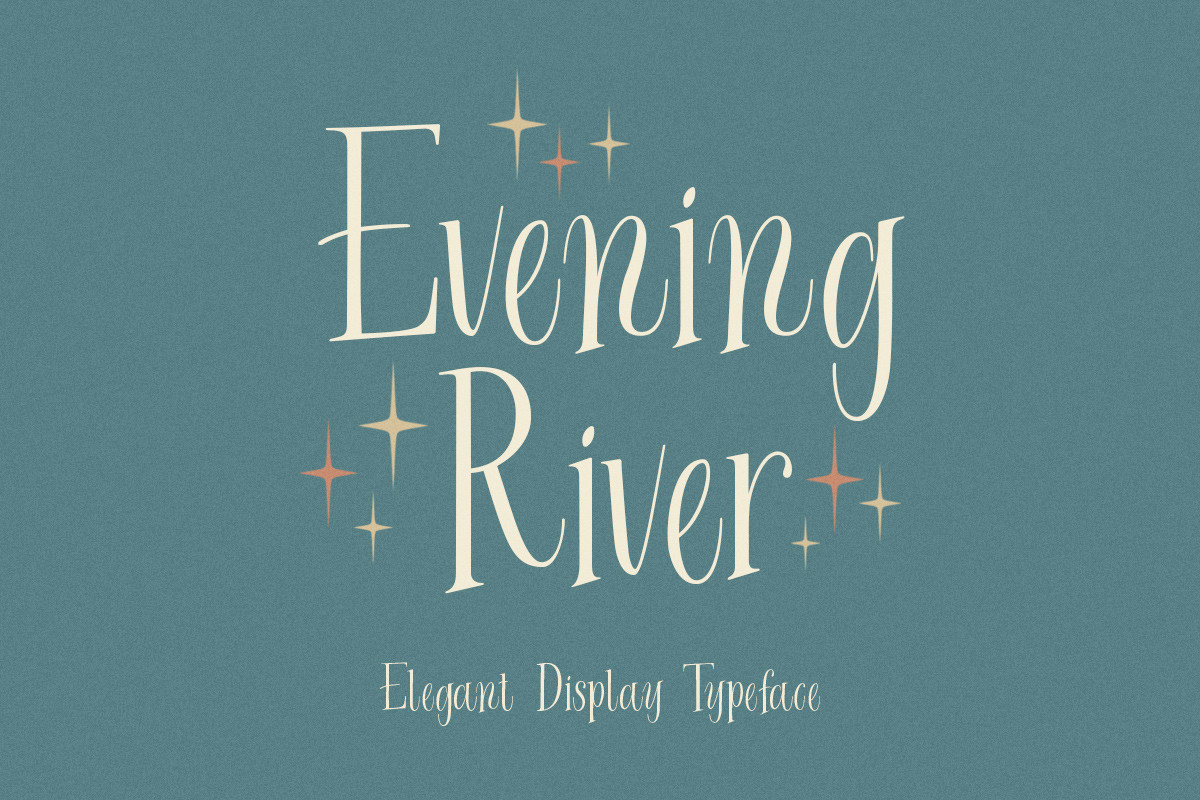
Evening River Font
Perfect for branding, logos, invitations, posters, and elegant editorial design.
The Evening River Font excites designers with its smooth, flowing script style that captures the calm and beauty of a peaceful river at dusk.
The Evening River Font Free Download is a graceful script typeface with delicate curves and a natural handwritten feel, perfect for wedding invitations, luxury branding, and creative projects that need a touch of elegance.
One of the key strengths of Evening River Font is its ability to balance decorative beauty with clear readability, making your designs both stylish and accessible.
In branding, Evening River communicates sophistication, tranquility, and warmth. It pairs beautifully with soft color palettes, floral elements, and minimalist layouts to create a refined and inviting look.
For digital projects, this font enhances social media graphics, blog headers, and digital invitations, adding a smooth and elegant touch to your online presence.